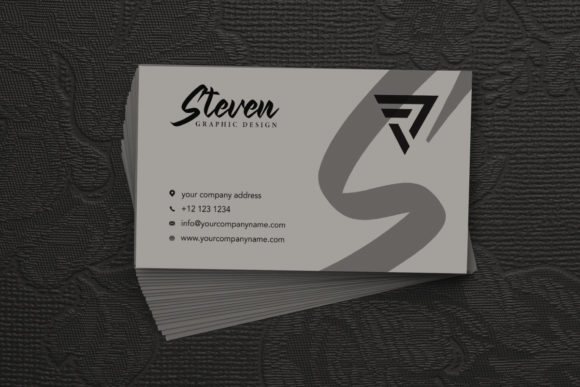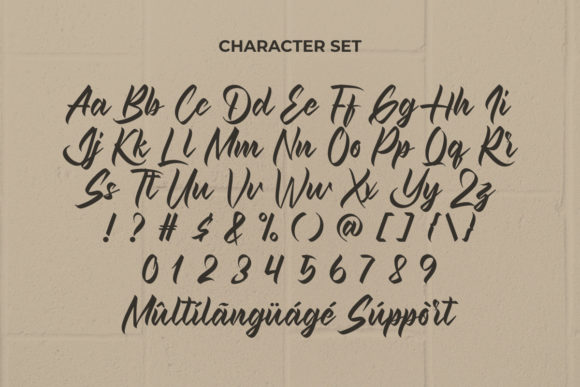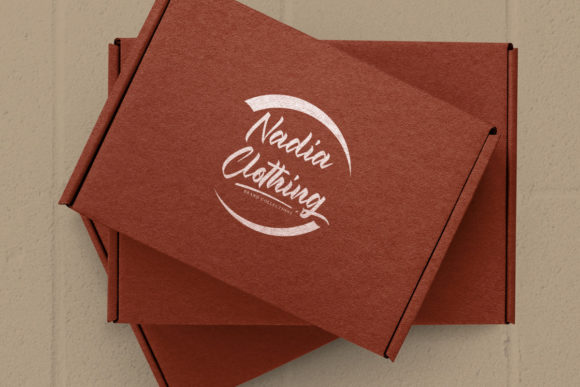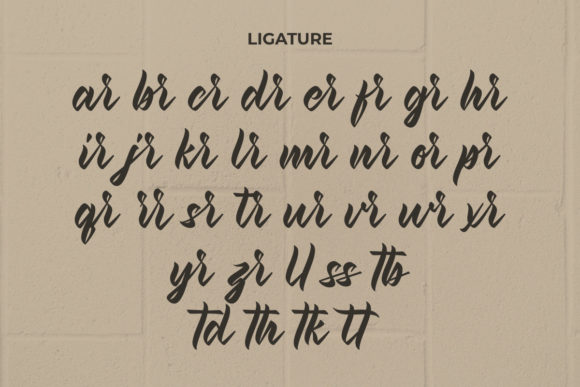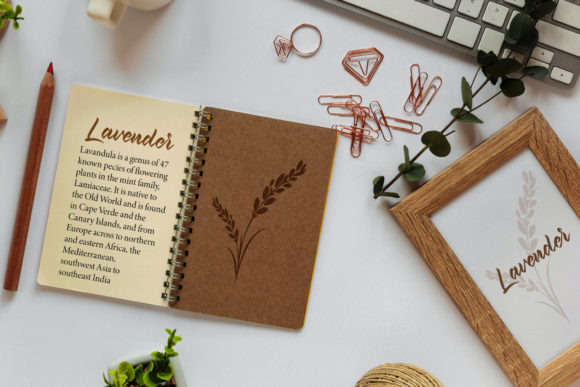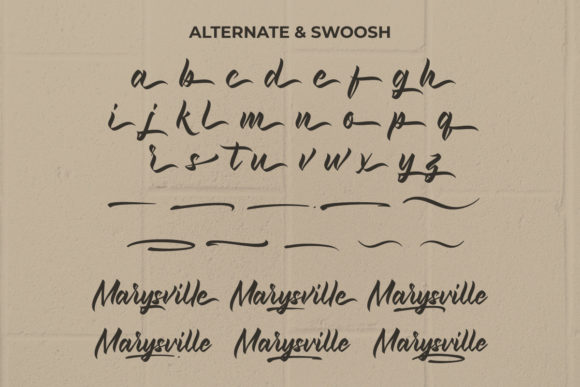
Introduction to Marysville Font
Enter the Marysville Font – a stunning script font designed to add a touch of elegance to your high-quality creative projects. With its perfect balance of thickness and variation, this font is a treasure trove of possibilities, waiting to be unlocked with ease. Whether you’re working on a project that requires a subtle, refined look or a bold statement, the Marysville Font is the perfect companion to help you achieve your goals.
Honest Review: Marysville Font
I recently stumbled upon the Marysville Font while searching for a high-quality design resource to enhance my creative project. The font has a lot to offer, and I’m excited to share my honest review with you.
- ✨ Beautifully crafted characters: The Marysville Font boasts elegant, well-designed characters that are perfect for any creative project.
- ✨ Versatile: This font is suitable for a wide range of applications, from business cards to digital displays.
However, I did encounter a few limitations.
- ⚠️ Limited font sizes: The Marysville Font may not be the best choice for very large or very small font sizes, as it may become difficult to read.
- ⚠️ No transparent background option: While the font itself is beautifully designed, it doesn’t support transparent backgrounds, which can be a limitation for certain design projects.
Overall, I’m impressed with the Marysville Font’s high quality and versatility. While it may have some limitations, it’s an excellent addition to any designer’s collection and is definitely worth considering for your next creative project.
Tips for Getting the Most Out of Marysville Font
For best results, pair the Marysville Font with a solid-colored background to make the text stand out. Experiment with different font sizes and styles to create visual interest.
The Marysville Font is perfect for creative projects such as blog posts, social media graphics, and business presentations. Its transparent background makes it ideal for layered designs and compositions.